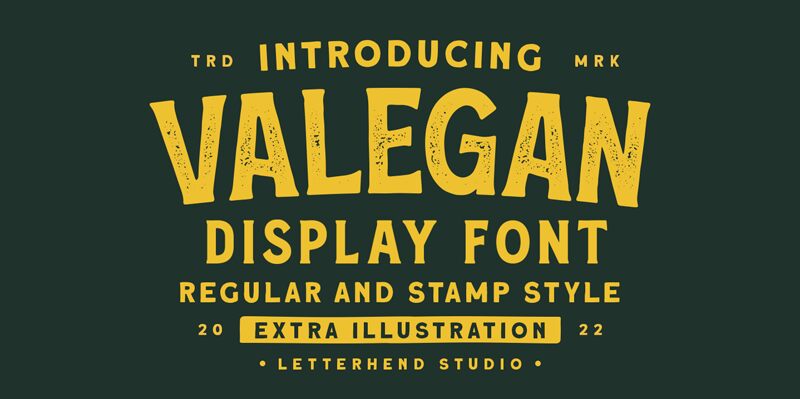
Valegan, the captivating retro display font by Letterhend Studio, brings a touch of nostalgia to your projects. With its semi-bold weight and semi-condensed width, this font adds a vintage charm to any design. Perfect for branding, advertisements, and packaging, Valegan effortlessly transports your audience back in time. From bold headlines to eye-catching logos, this versatile typeface lends itself beautifully to various projects – from retro-inspired video games and fashion editorials to classic movie posters and trendy coffee shop menus. Let Valegan be the timeless choice for your next creative endeavor.